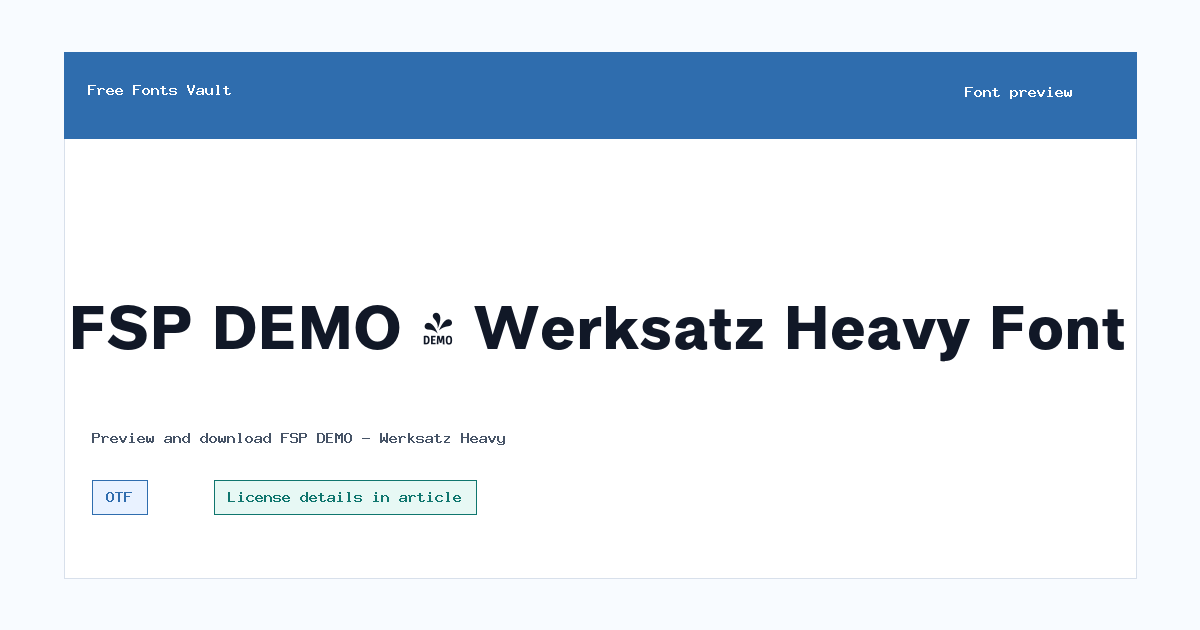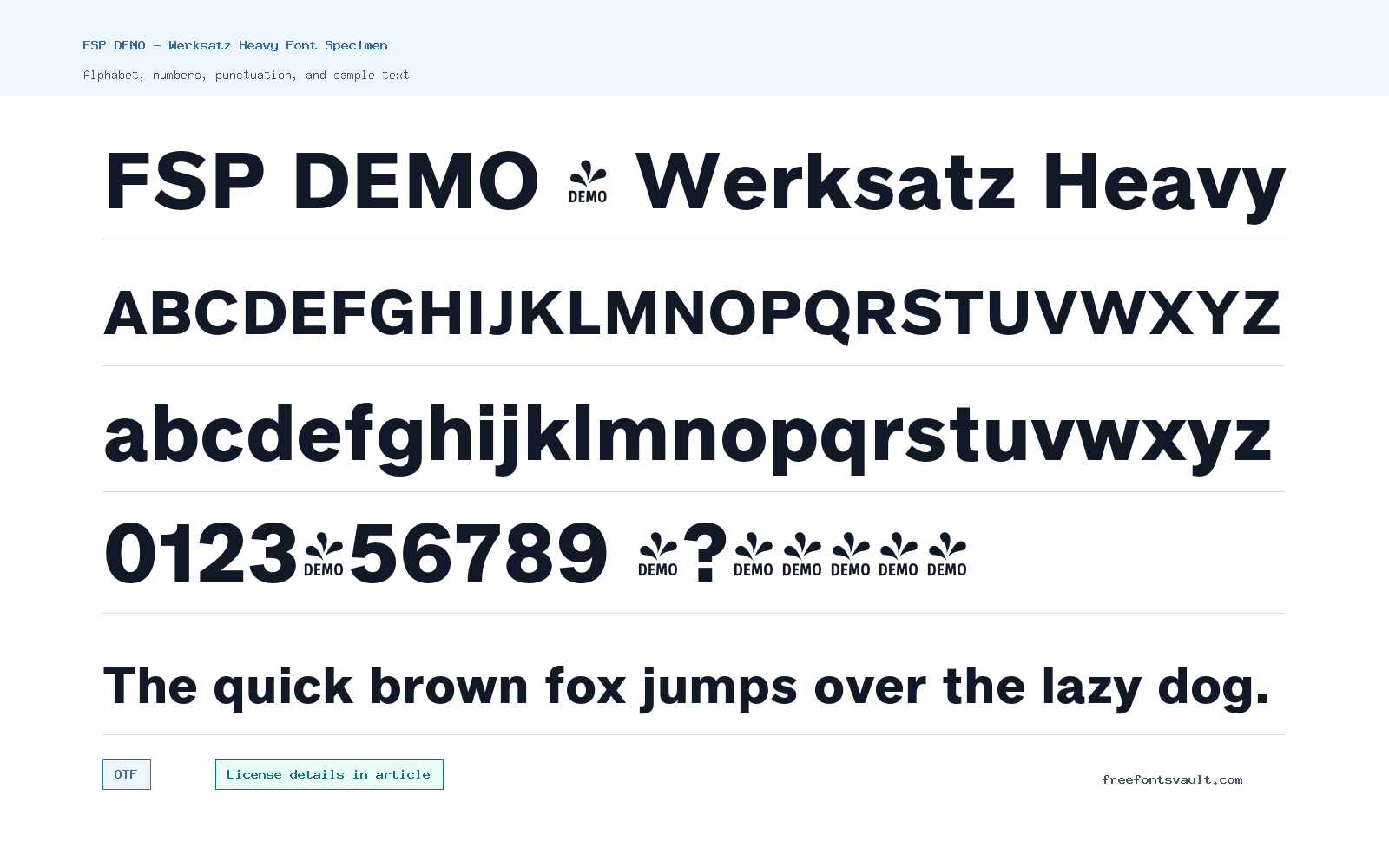
FSP DEMO - Werksatz Heavy
- Designer Moritz Kleinsorge
- Foundry Identity Letters
FSP DEMO – Werksatz Heavy font.
FSP DEMO – Werksatz Heavy is an 800-weight OTF display style credited to Moritz Kleinsorge, with Identity Letters listed as foundry.
About FSP DEMO – Werksatz Heavy
Werksatz Heavy is built for situations where the words need real visual weight. The listed file, werksatz-heavy.otf, is a normal-style OTF with an 800 weight, so it is best judged as a heavy display cut rather than a comfortable reading face. Try it with short headings, product names, poster titles, navigation labels, and one-line promotional text.
Heavy sans serif fonts can look strong and clean, but they also fill space quickly. Use the preview to test the exact phrase, then watch how uppercase letters, punctuation, and numbers behave. If the words feel too dense, add tracking, reduce the phrase length, or pair the heavy title with a lighter supporting font.
- Heavy 800 weight for strong display typography.
- Normal style variant with bold sans serif impact.
- Designer credit to Moritz Kleinsorge and foundry credit to Identity Letters.
- Headlines, posters, banners, title graphics, and social media text.
- Bold navigation labels, badges, buttons, and UI accents.
- Brand-direction mockups where a heavy sans serif is needed.
- Short promotional lines that need quick visual impact.
- Pairing with a lighter body font for readable supporting copy.
Start with short words or one-line headings. Test letter spacing, small sizes, numbers, and punctuation before final artwork. Avoid using this heavy style for paragraphs, small footnotes, or accessibility-critical text unless the preview remains clearly readable.
What weight is Werksatz Heavy?
The available file is listed with an 800 weight, which is a heavy style.
Who designed Werksatz Heavy?
Moritz Kleinsorge is credited as designer, and Identity Letters is listed as the foundry.
What is Werksatz Heavy best used for?
Use it for short, bold text such as headlines, posters, banners, labels, badges, and display mockups.